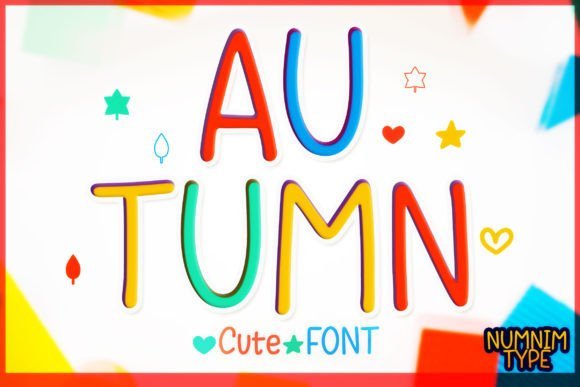
The Cozy Feeling of Autumn Font
As I sip my pumpkin spice latte and watch the leaves change colors, I’m reminded of the magic of the Fall season. It’s the perfect time to get creative, and for me, that means breaking out my favorite fonts to craft the perfect designs. Speaking of which, I recently stumbled upon the Autumn Font – a charming Display font that’s been making my heart skip a beat.
This adorable font is designed to evoke the warmth and coziness of the Autumn season. With its playful characters and PUA encoding, it’s the perfect tool for designers looking to add a personal touch to their projects. Whether you’re creating stickers, mugs, or event cards, the Autumn Font is sure to bring a smile to your face and a touch of whimsy to your designs.
Autumn Font Key Features
- Font Family: Autumn Font is a sans-serif font family designed for use in digital and print media.
- Unique Characteristics: Autumn Font features a unique blend of modern and minimalist design elements, making it ideal for use in corporate branding, editorial design, and digital interfaces.
Designer Review: Autumn Font
Overall, I was quite impressed with the Autumn Font. Here are some of its highlights:✨
- Unique and versatile design that can be used in a variety of applications, from logotypes to body text.
- The font’s organic feel and natural lines evoke a sense of warmth and coziness, perfect for fall-themed designs or projects with a rustic tone.
- The font is well-suited for digital and print use, with clear and legible characters at various sizes.
However, there are a few limitations to consider:⚠️
- The font’s design can be quite busy and may not be suitable for all types of projects or audiences.
- The font’s characters may not be optimized for certain languages or scripts, which could lead to display issues.
- The font’s unique design may not be to everyone’s taste, and some users may find it too playful or unconventional.
Overall, I think the Autumn Font is a great addition to any designer’s toolkit, but it’s essential to consider its limitations and target audience before using it in a project.
The Autumn Font is particularly suitable for designs related to nature, outdoor activities, and fall-themed events. You can use it for invitations, posters, and social media graphics to create a warm and inviting atmosphere.
To get the most out of the Autumn Font, experiment with different font sizes, styles, and colors. You can also use the font in combination with other design elements, such as images and graphics, to create a cohesive look. Additionally, consider pairing the font with other fonts to create a visually appealing typography.